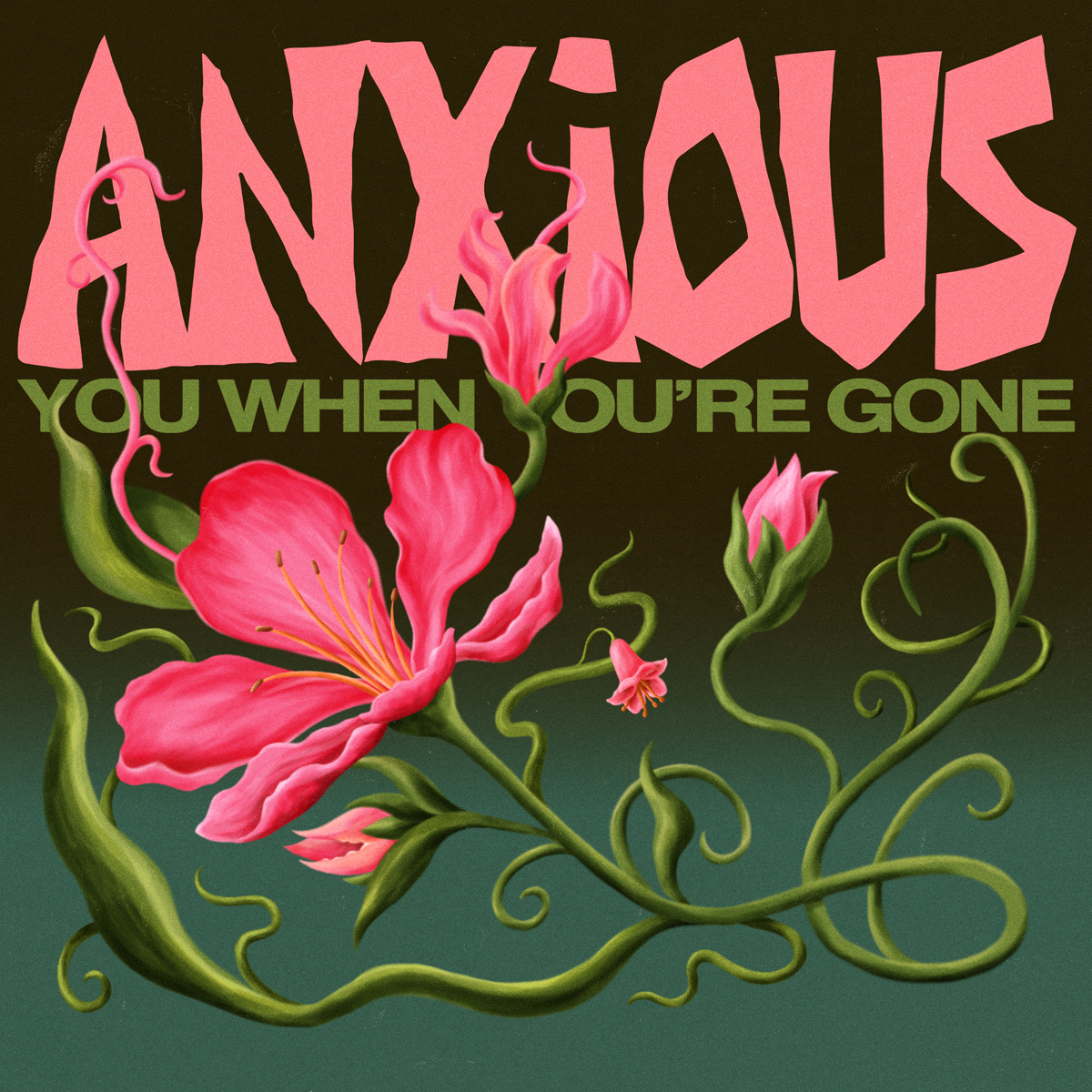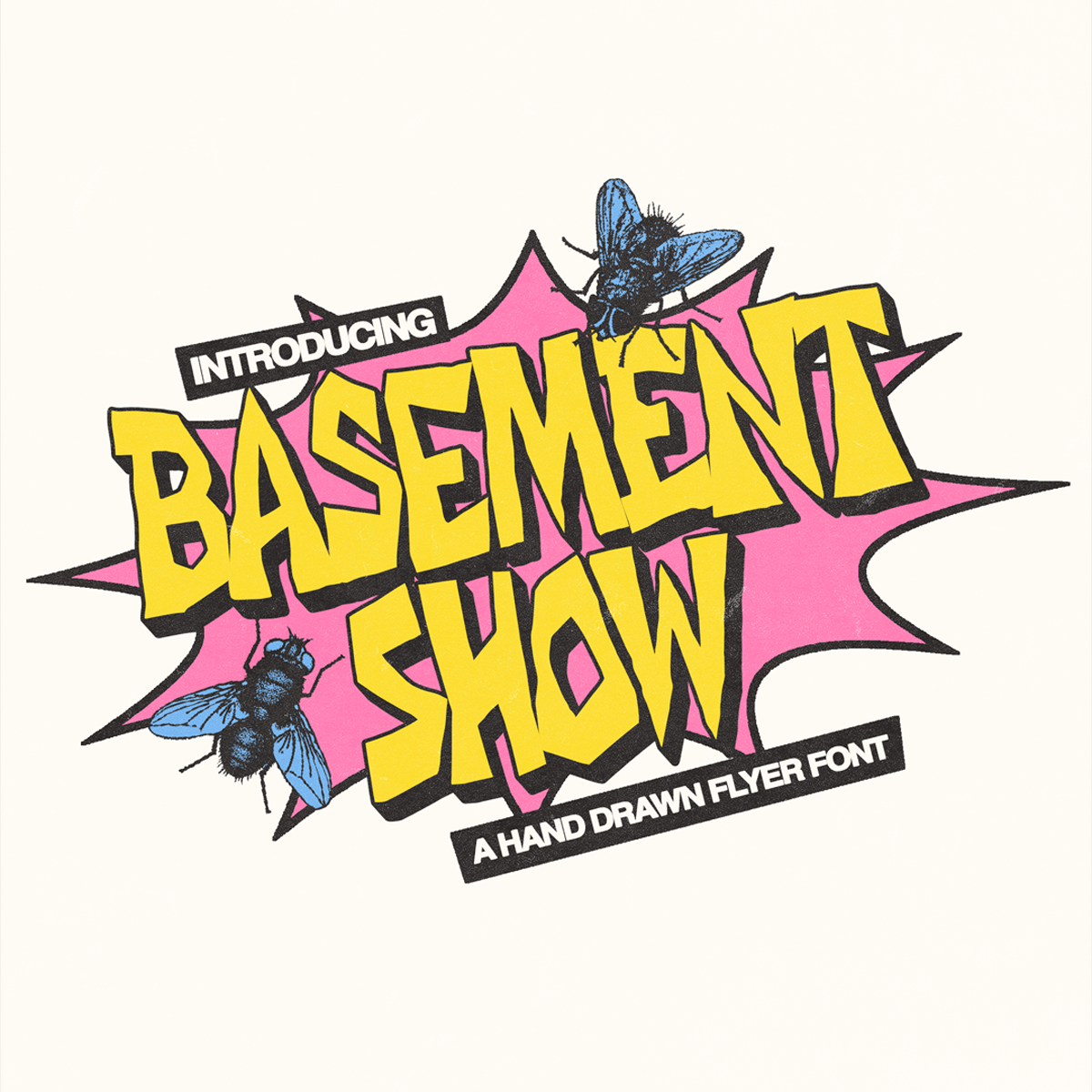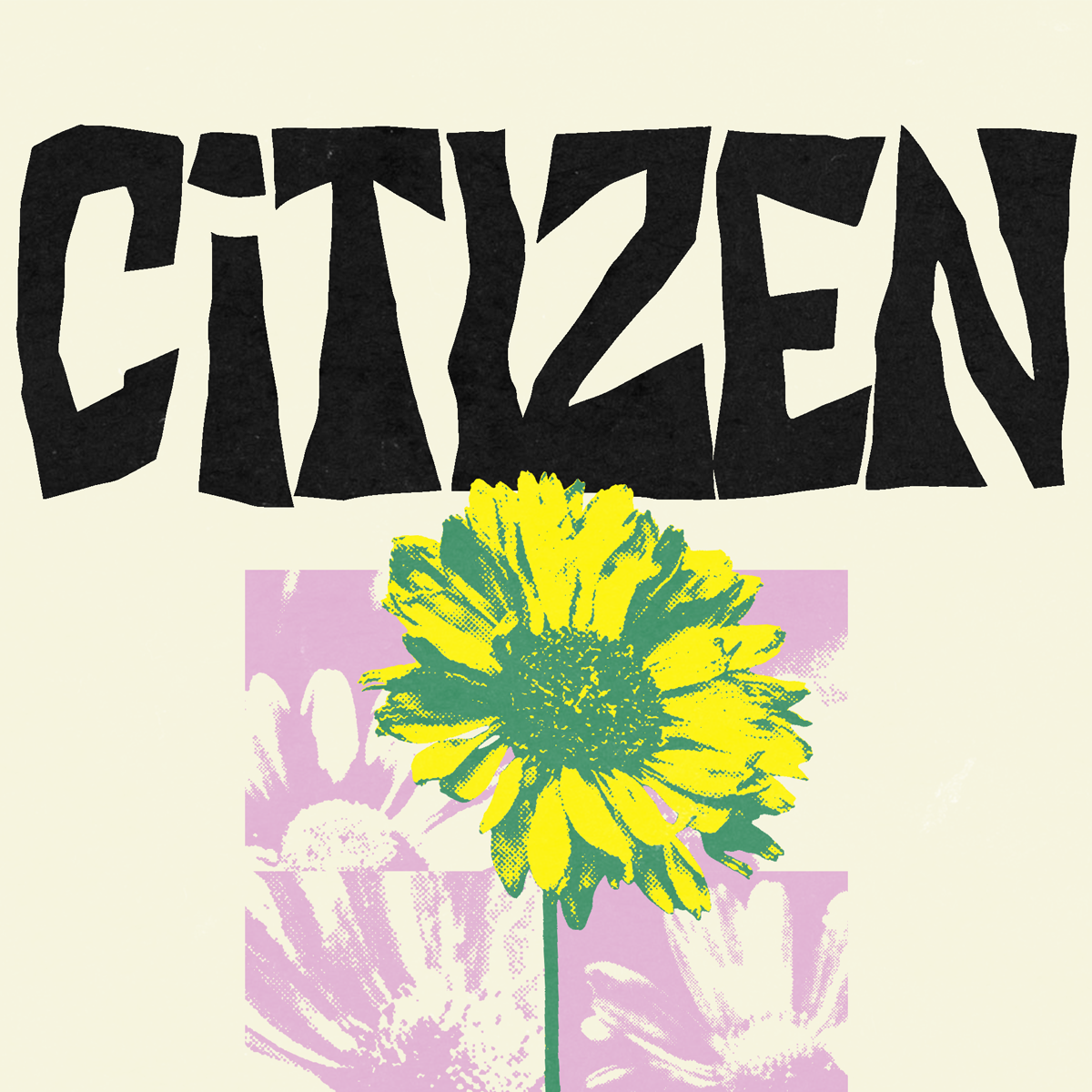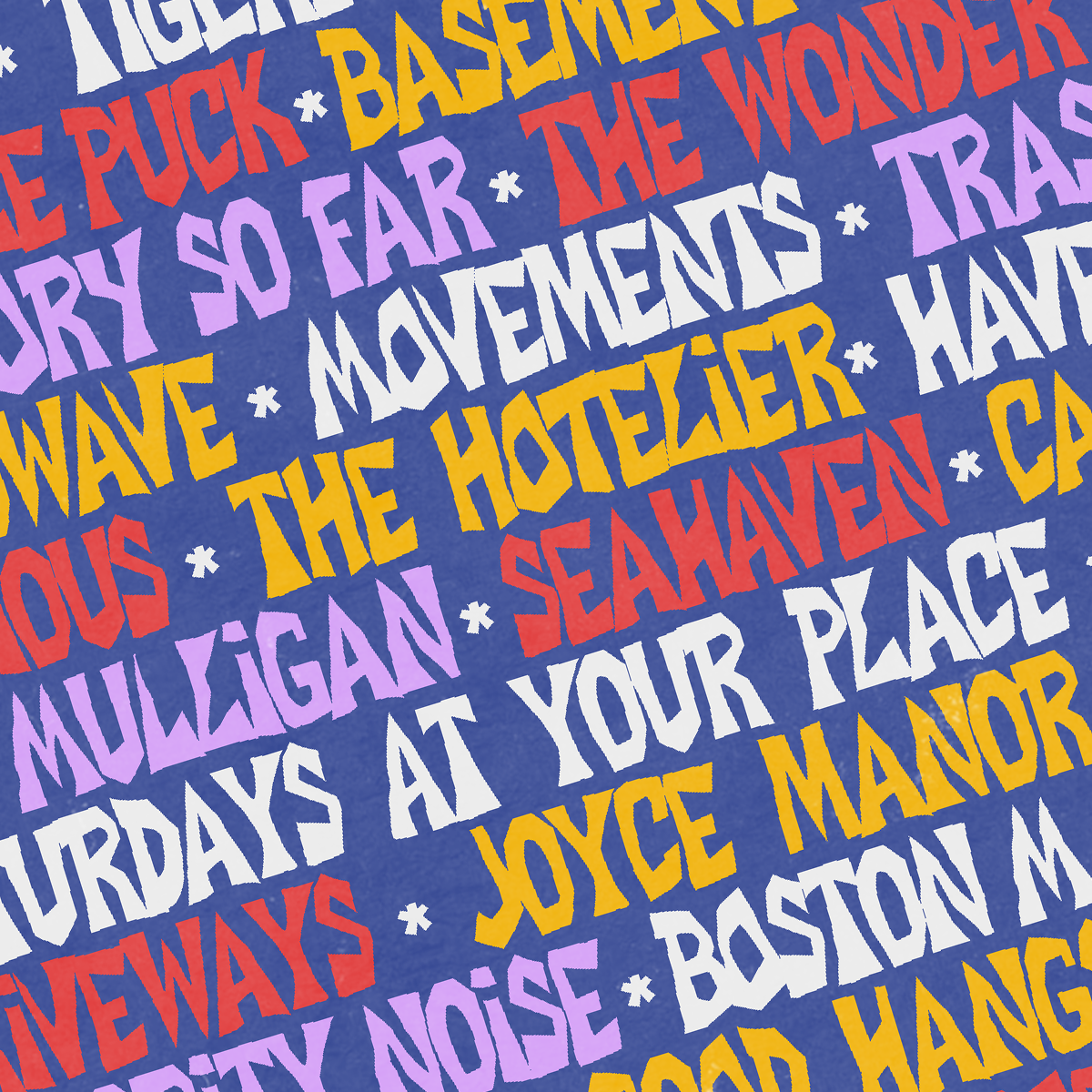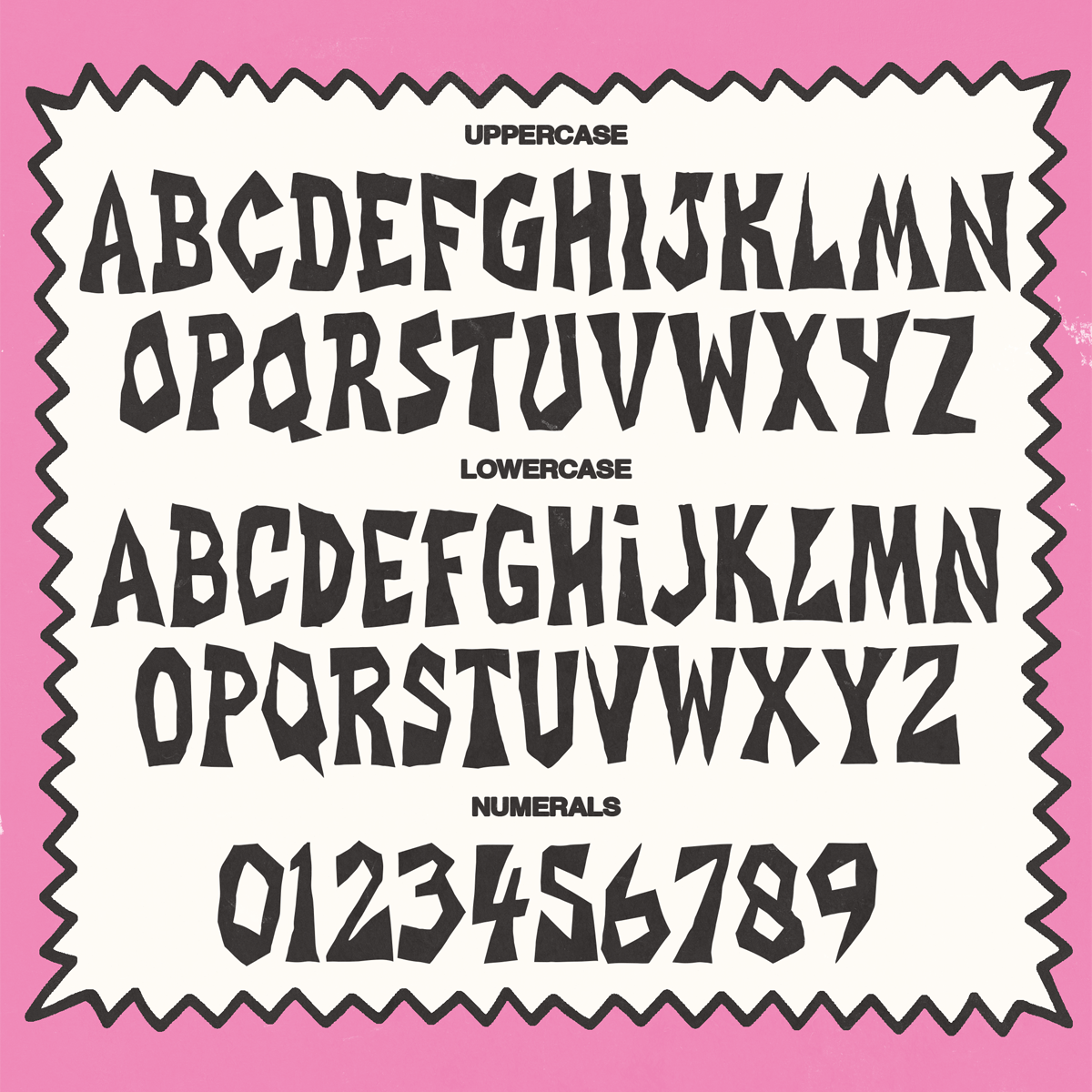
"Basement Show" is one of my fonts inspired by alternative music posters. A super versatile hand drawn font this can be used on a tonne of mediums such as posters, logos, vinyl art, stickers, merchandise and loads more.
Full Alphabet (2 variants per letter. All uppercase)
Numbers and select limited symbols